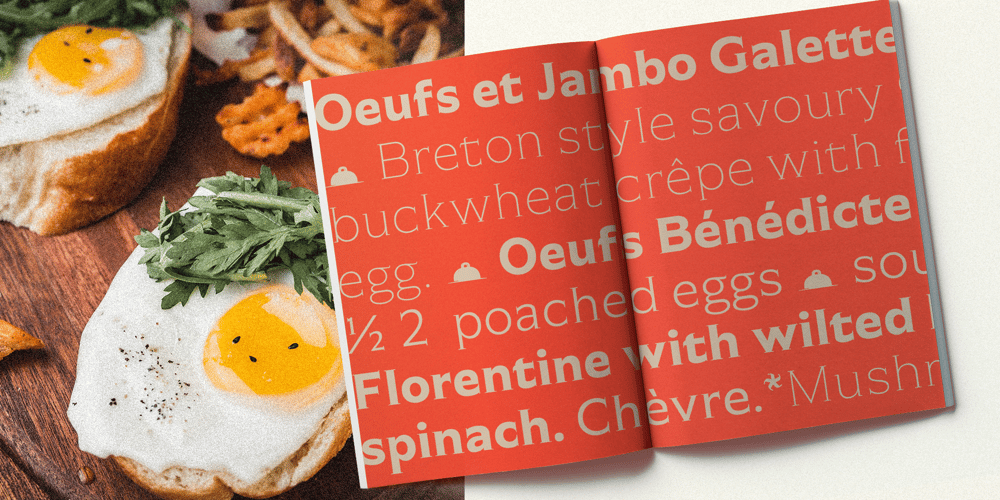
Garcon Grotesque
Garcon Grotesque font
Garcon Grotesque Font Family was designed by published by Thomas Jockin. Garcon Grotesque contains 5 styles and family package options. From pastiche to sophistication‭, ‬Garçon Grotesque improves on a classic for today’s designer‭. ‬Designed in a multitude of weights‭, ‬extended latin character set‭, ‬small capitals and a working lowercase‭, ‬Garçon is built for any situation that calls for sophistication‭, ‬elegance and culture‭.‬ Built in five weights‭, ‬Garçon Grotesque allows for great flexibility‭. ‬Use the Bold weight for beefy headlines‭. ‬Use the the medium and regular weights for subheads and decks‭. ‬Use the Light and Thin weights for a softer‭, ‬more delicate tone‭. ‬All weights have the same size spurs‭, ‬so you can mix and match‭! ‬ Right out of the box‭, ‬Garçon Grotesque offers full language support to most eastern european speaking territories‭. ‬Most foundries release these accent characters as a‭ “‬pro‭” ‬release at an additional fee‭. ‬Just because you speak Turkish or Croatian‭, ‬shouldn’t mean you have to pay more than a designer who speaks English‭. ‬Please see the Specimen PDF for more information about languages supported‭. ‬ Accessible as an OpenType Feature‭, ‬Garçon Grotesque offers alternate forms of the uppercase‭ “‬J‭”, ‬and the lowercase‭ “‬a‭” ‬and‭ “‬g‭”. ‬Use Stylistic Set 01‭ ‬for the alternate form capital J‭. ‬Use Stylistic Set 02‭ ‬for the alternate form of the lowercase a‭. ‬Use Stylistic Set 03‭ ‬for the alternate form of the lowercase g‭. ‬ Also accessible as an OpenType Feature‭, ‬Garçon Grotesque offers tabular figures in all five weights‭. ‬Perfect for menus‭, ‬tabular figures allow for number listings to align easily and without shifting if a different font weight is selected for emphasis‭. ‬